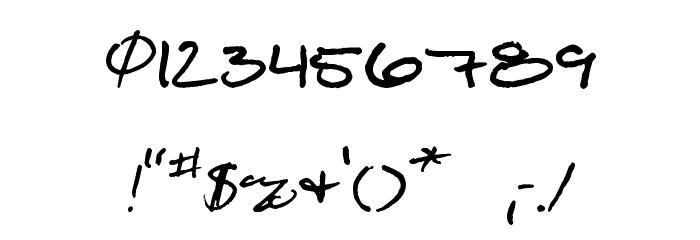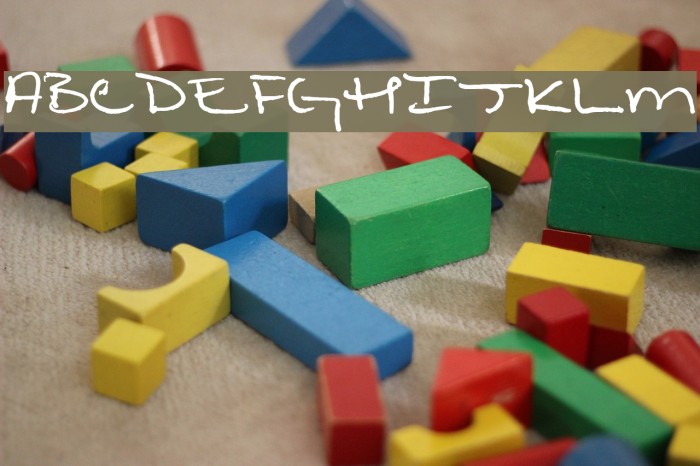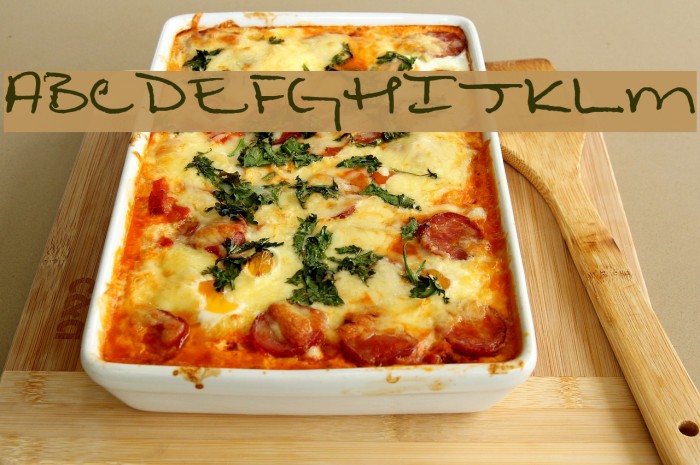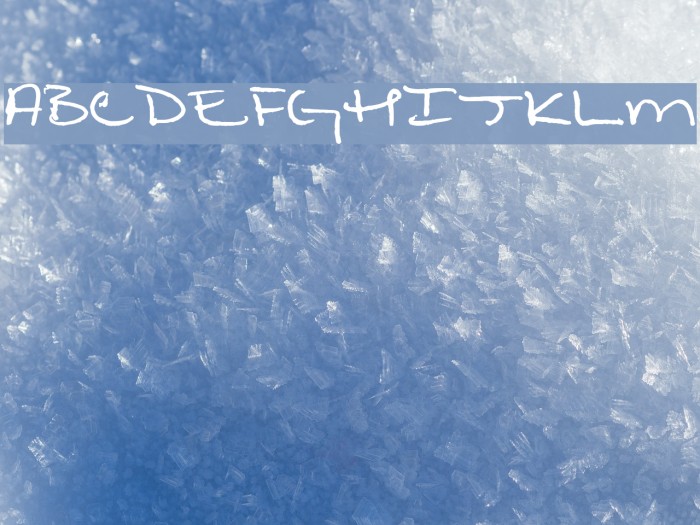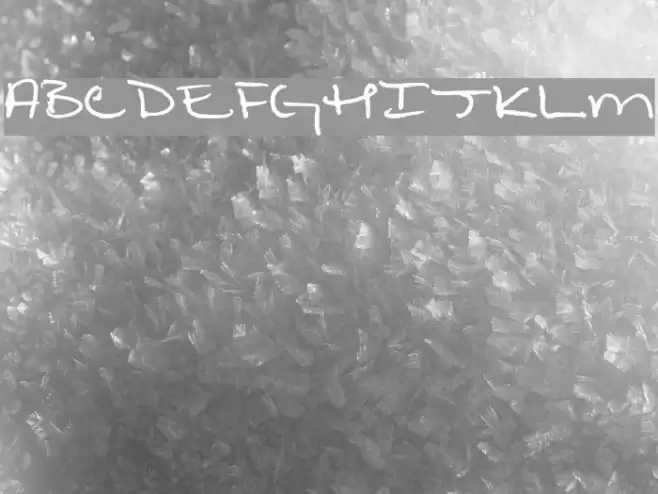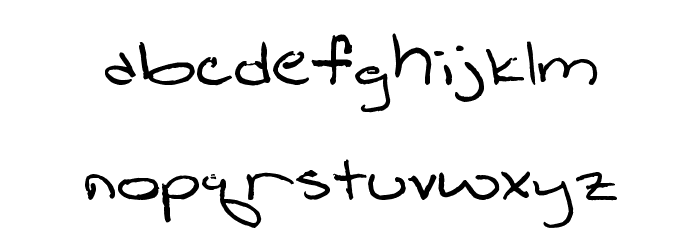
Shattered Print Font
Shattered Print Description
This font features a dynamic and expressive handwritten style, characterized by its irregular and playful strokes. The letters have a casual, informal appearance, with varying thickness that adds a sense of movement and energy. The uppercase and lowercase letters are distinct yet harmonious, maintaining a consistent flow throughout. Numbers and special characters follow the same lively aesthetic, making the font versatile for creative projects. Its unique style captures attention and conveys a sense of spontaneity and creativity.
| Use Case | Logos, Headlines, Artistic projects |
| Proposed Projects | Ideal for greeting cards, personal branding, artistic posters, and creative social media graphics. |